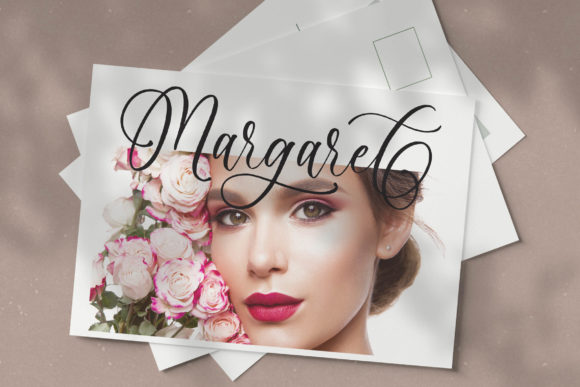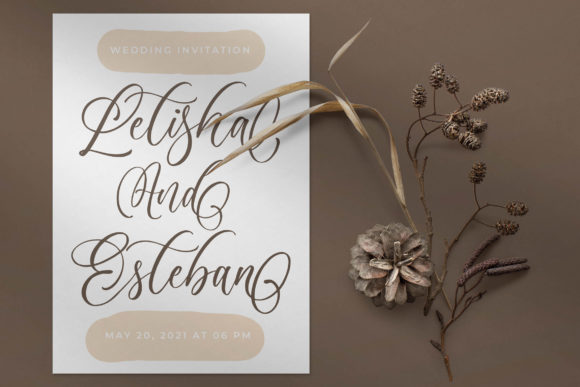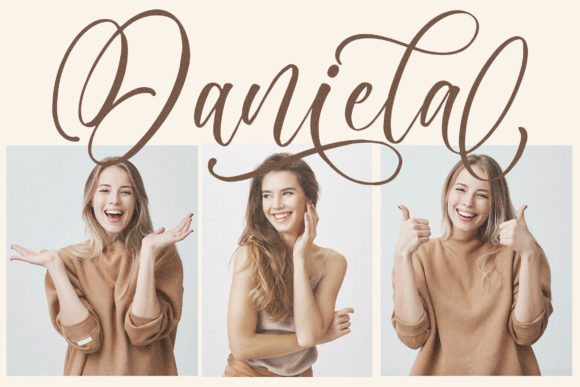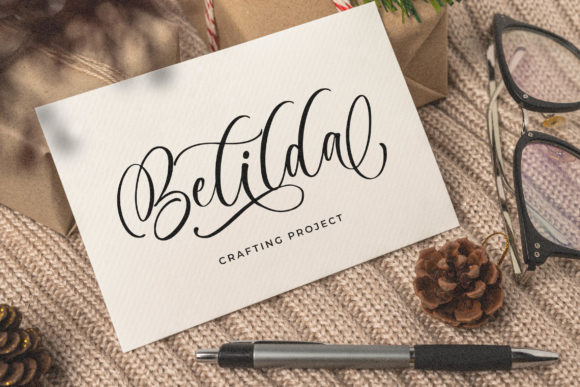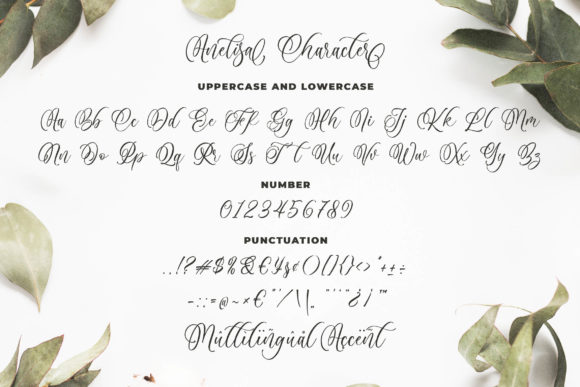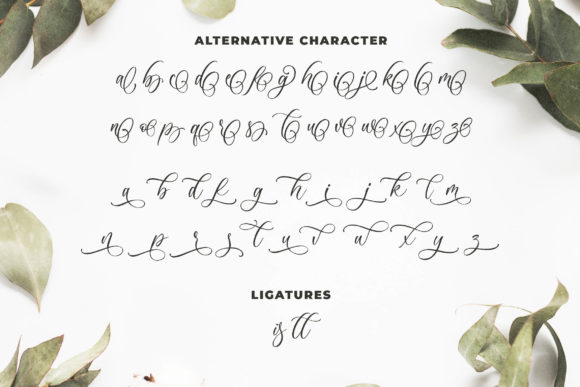
Discover the Elegance of Anelisa Font: A Delicate Handwritten Masterpiece
In the world of typography, few fonts manage to capture the essence of elegance and delicacy as effortlessly as Anelisa Font. This beautiful, handwritten font has been turning heads with its distinct, well-rounded letters and incredibly versatile style. Whether you’re a designer looking for the perfect addition to your project or a crafter seeking to elevate your creations, Anelisa Font is sure to captivate you with its charm.
The Characteristics of Anelisa Font
Anelisa Font stands out in the realm of handwritten fonts due to its unique blend of delicacy and elegance. Its letters are carefully crafted to exude a sense of refinement and sophistication, making it an ideal choice for projects that demand a touch of class. The font’s distinct and well-rounded letters not only add to its aesthetic appeal but also enhance readability, ensuring that your message is conveyed with clarity and style.
One of the most compelling features of Anelisa Font is its incredible versatility. This font is not just a pretty face; it’s a highly functional tool that can be used across a wide range of design projects. From wedding invitations and branding materials to packaging and digital content, Anelisa Font adapts seamlessly to various contexts, allowing you to create spectacular designs that leave a lasting impression.
Anelisa Font takes convenience to the next level with its PUA (Private Use Area) encoding. This feature means that accessing all the glyphs and swashes is remarkably easy, giving you the flexibility to experiment with different styles and variations without hassle. Whether you’re looking to add a personal touch to your designs or seeking to create a cohesive brand identity, the PUA encoding of Anelisa Font makes it straightforward to unlock its full creative potential.
Why Designers and Crafters Love Anelisa Font
Designers and crafters alike are drawn to Anelisa Font for several reasons:
- Elegant Aesthetic: Its delicate and elegant appearance makes it perfect for projects where sophistication is key.
- Versatility: It can be used in a variety of design contexts, from digital to print.
- Readability: The well-rounded letters ensure that text remains clear and easy to read.
- Easy to Use: PUA encoding allows for effortless access to glyphs and swashes, streamlining the design process.
Tips for Using Anelisa Font
To make the most of Anelisa Font, consider the following tips:
- Mix and Match: Don’t be afraid to combine Anelisa Font with other fonts to create visual interest. Its elegance pairs well with both modern and traditional typefaces.
- Play with Swashes: Take advantage of the PUA encoding to experiment with different swashes and glyphs, adding a unique touch to your designs.
- Consider Context: While Anelisa Font is versatile, ensure it aligns with the tone and theme of your project. Its elegance shines in contexts where sophistication is desired.
Anelisa Font is more than just a beautiful handwritten font; it’s a gateway to creating stunning designs that speak of elegance and refinement. Its distinct letters, versatile style, and PUA encoding make it an invaluable tool for designers and crafters looking to elevate their projects. Whether you’re aiming to create a lasting brand impression, design memorable packaging, or craft beautiful stationery, Anelisa Font is sure to inspire your creativity and help you achieve spectacular results.